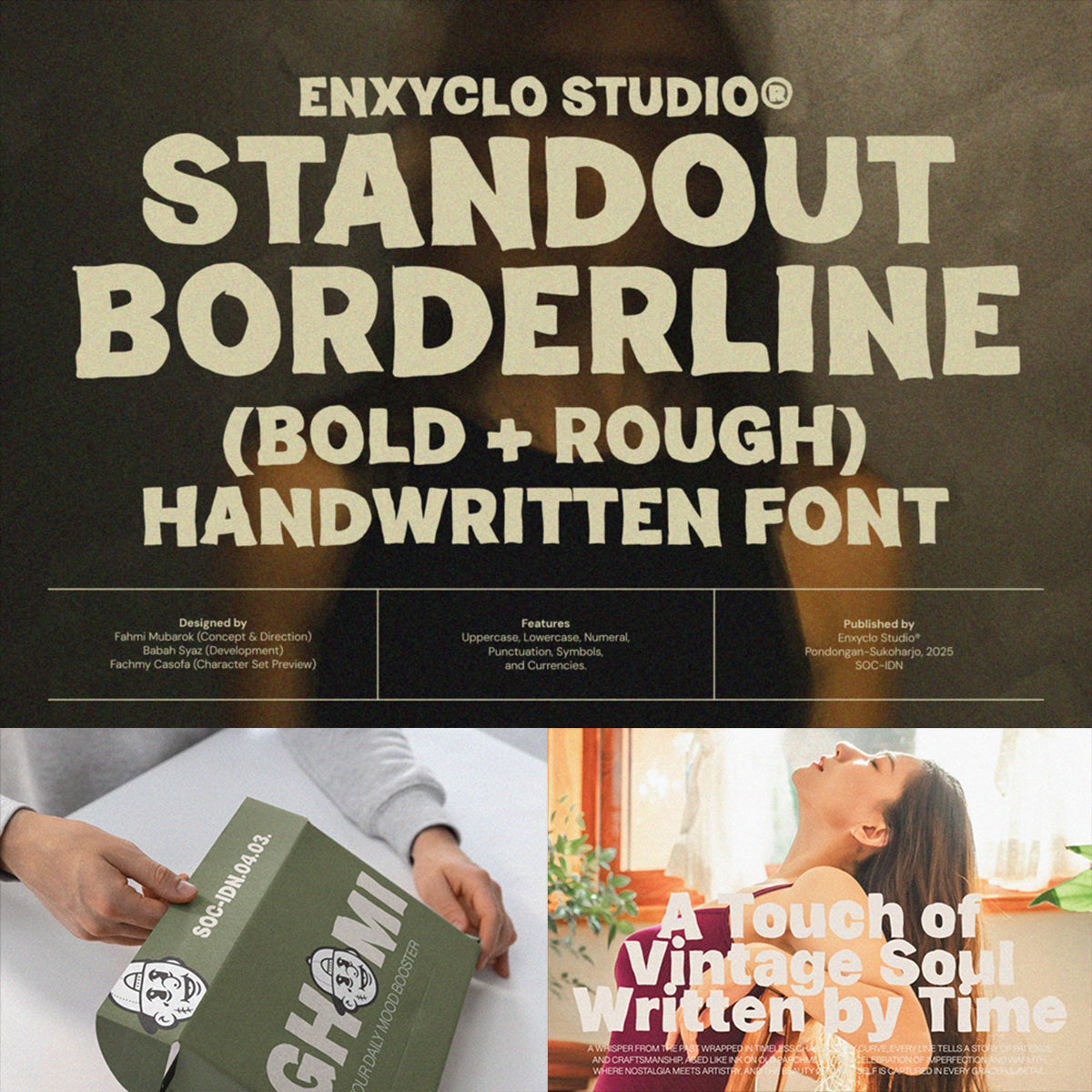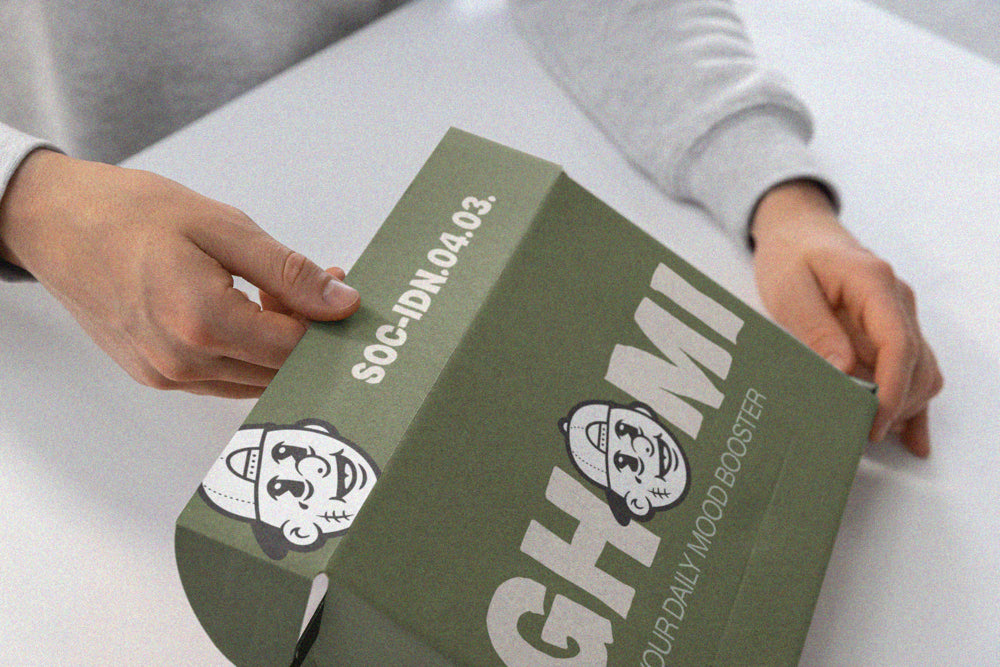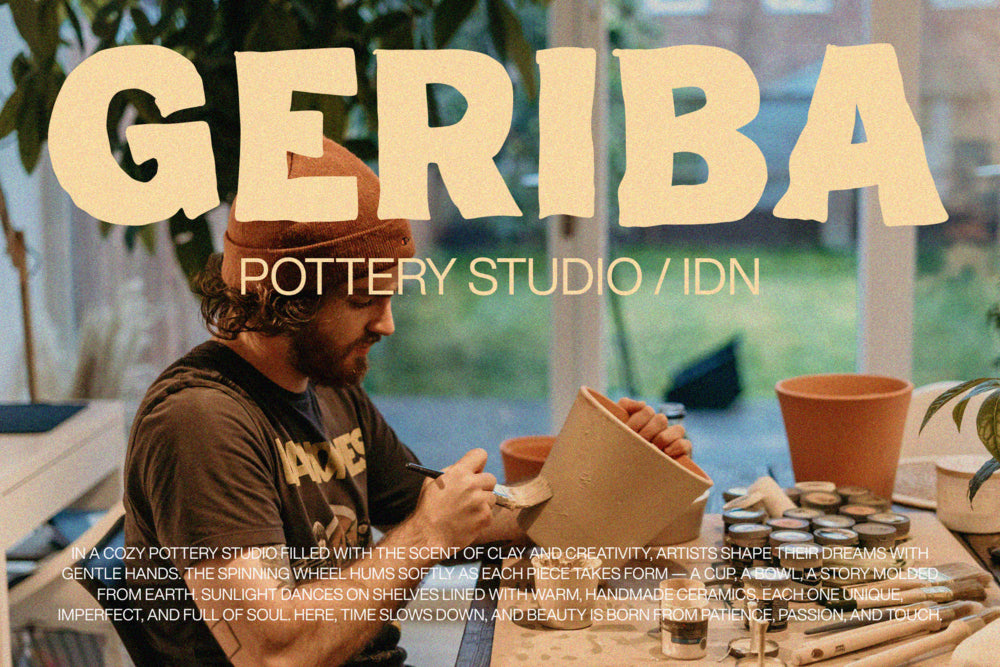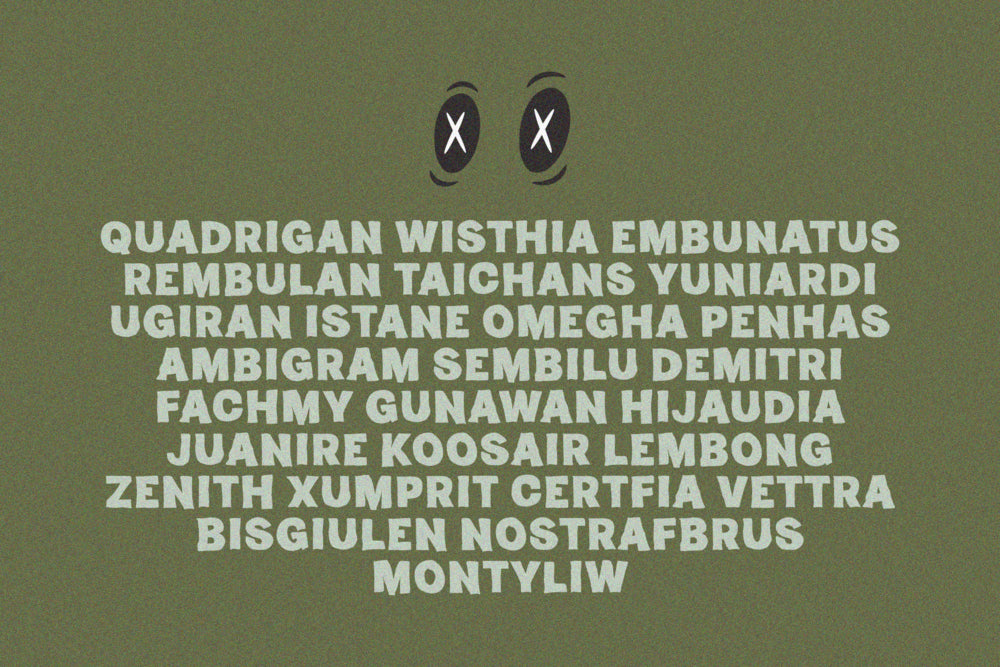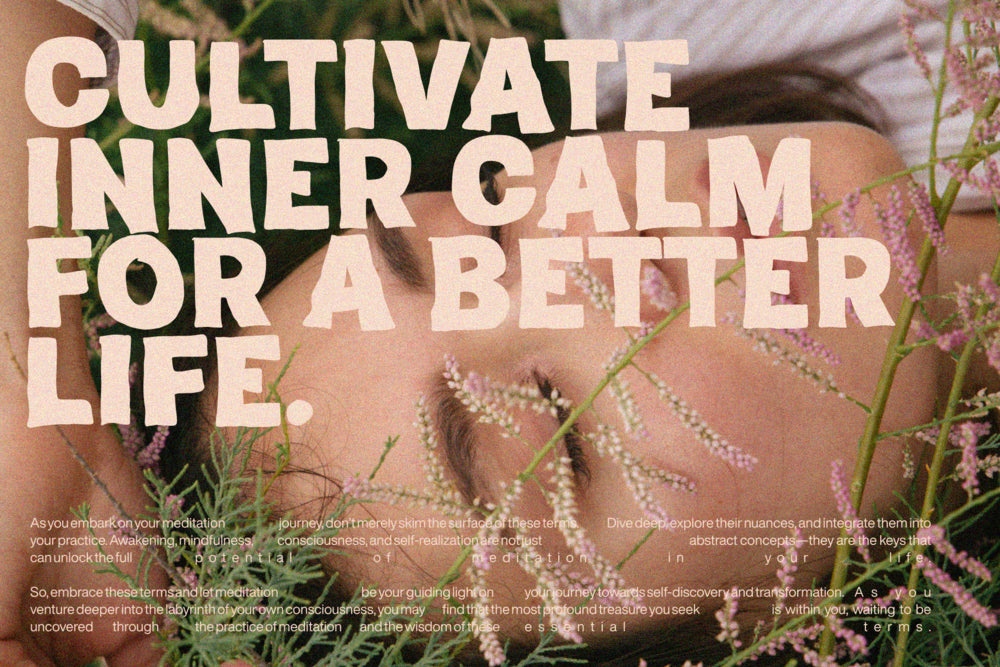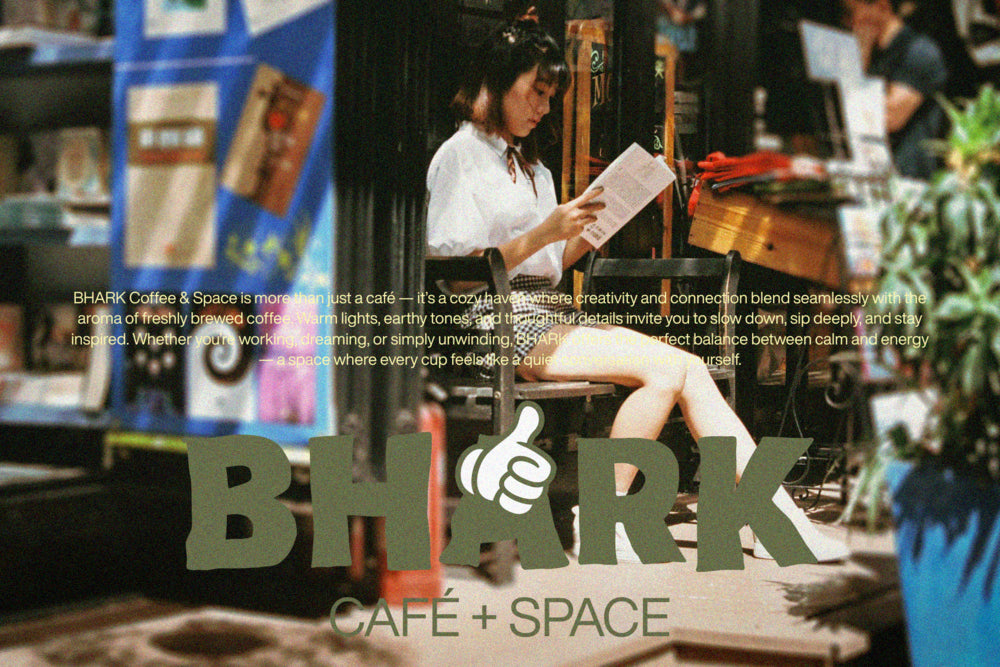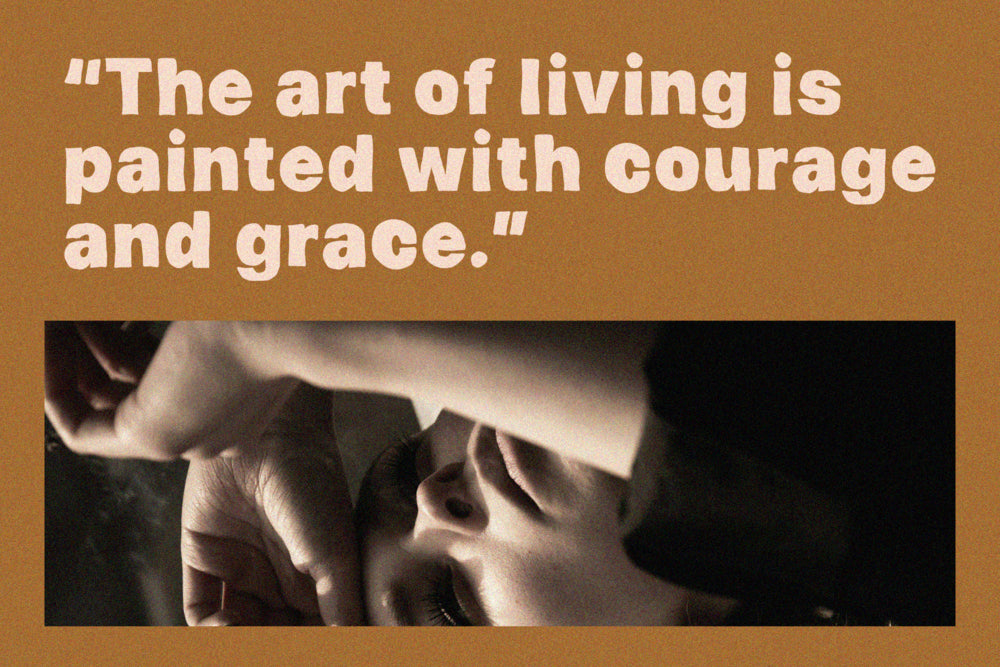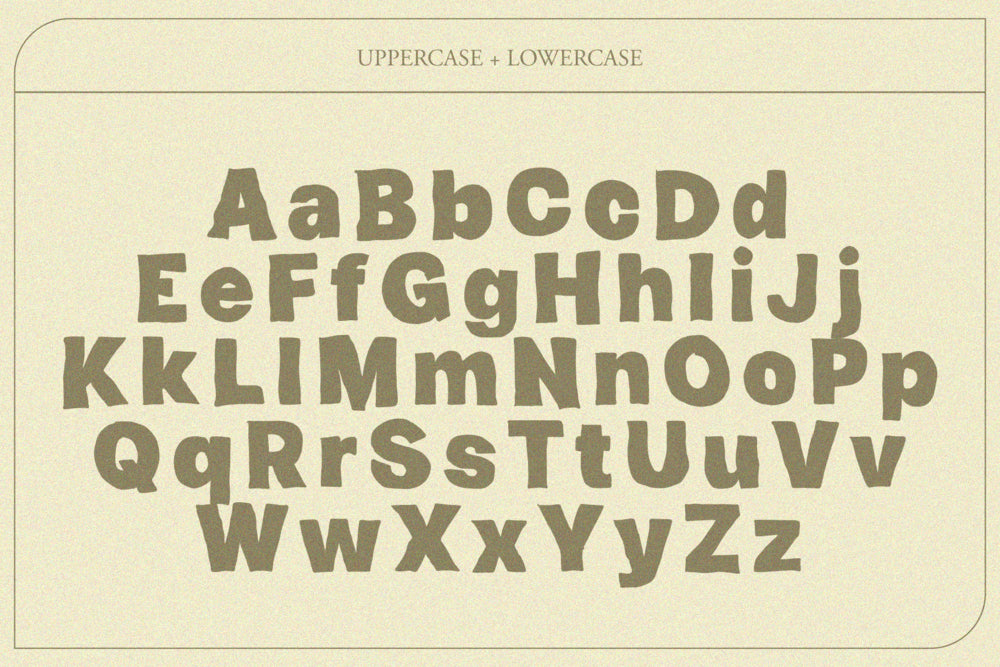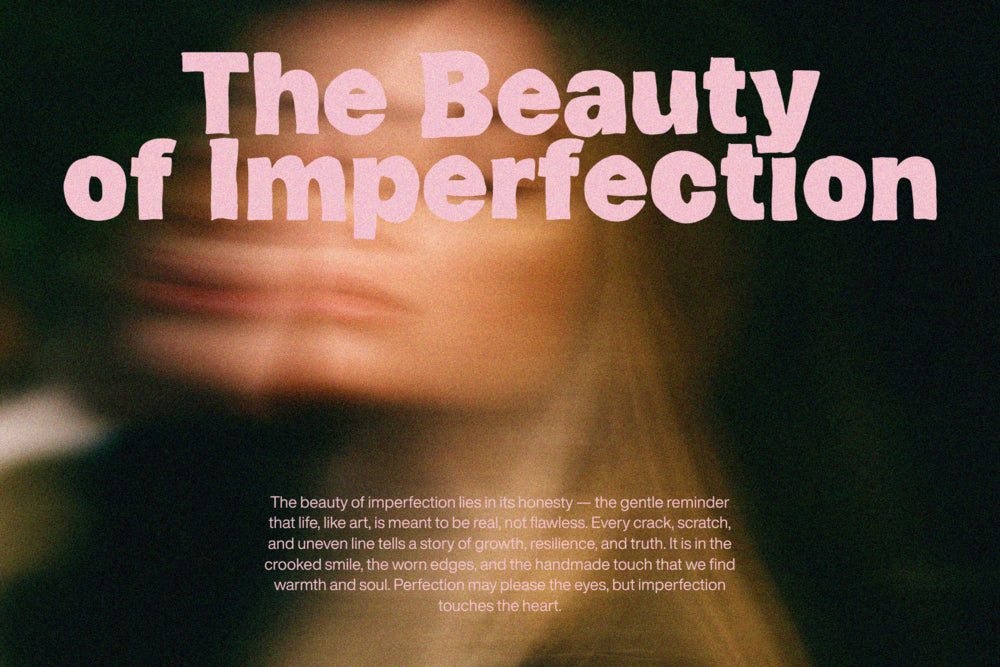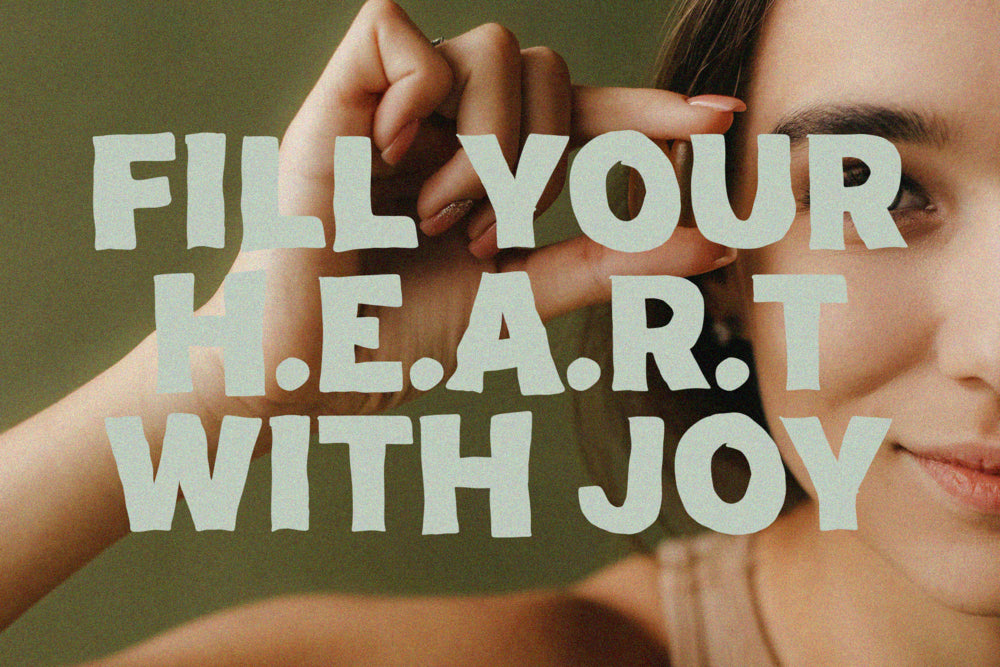
STANDOUT BORDERLINE — Bold Raw Font
STANDOUT BORDERLINE is a bold handwritten font featuring a rough texture and vintage style, available in OTF, TTF, and WOFF formats. It includes uppercase and lowercase letters, punctuation marks, a symbol set, and currency symbols, making it suitable for various design applications.